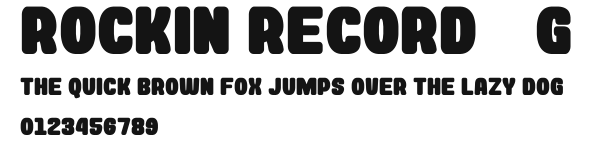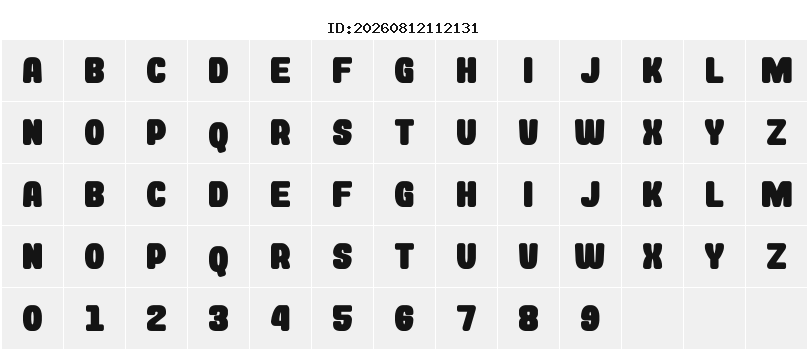
• Font Name: Rockin Record__G
• Font ID: Rockin Record__G
• Full Font Name: Rockin Record__G
• Version: Ver.1.1 Gomarice Font 2014/02/17
• PostScript Name: Rockin-Record__G
• Copyright: Goma Shin
About Rockin Record__G.ttf
Rockin Record__G.ttf is a modern, elegant sans-serif font designed for ultimate readability and visual harmony. Perfect for branding, headlines, web design, and print materials.